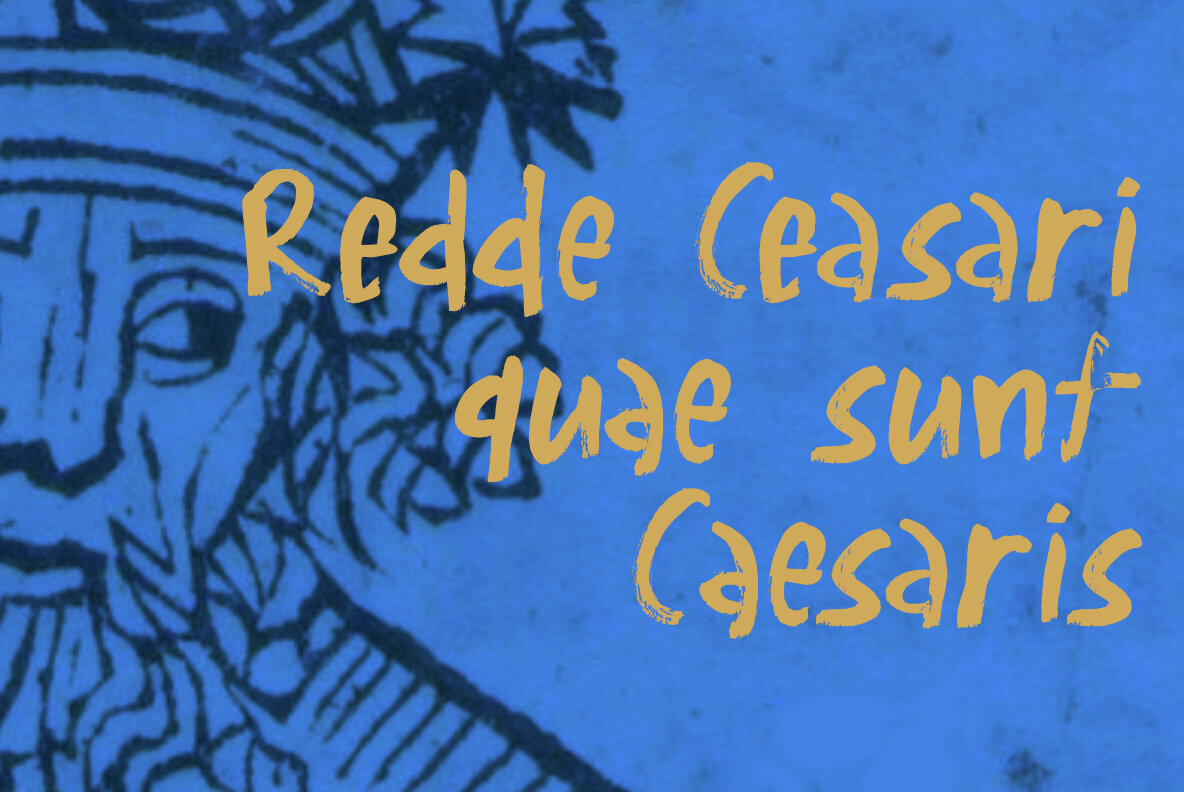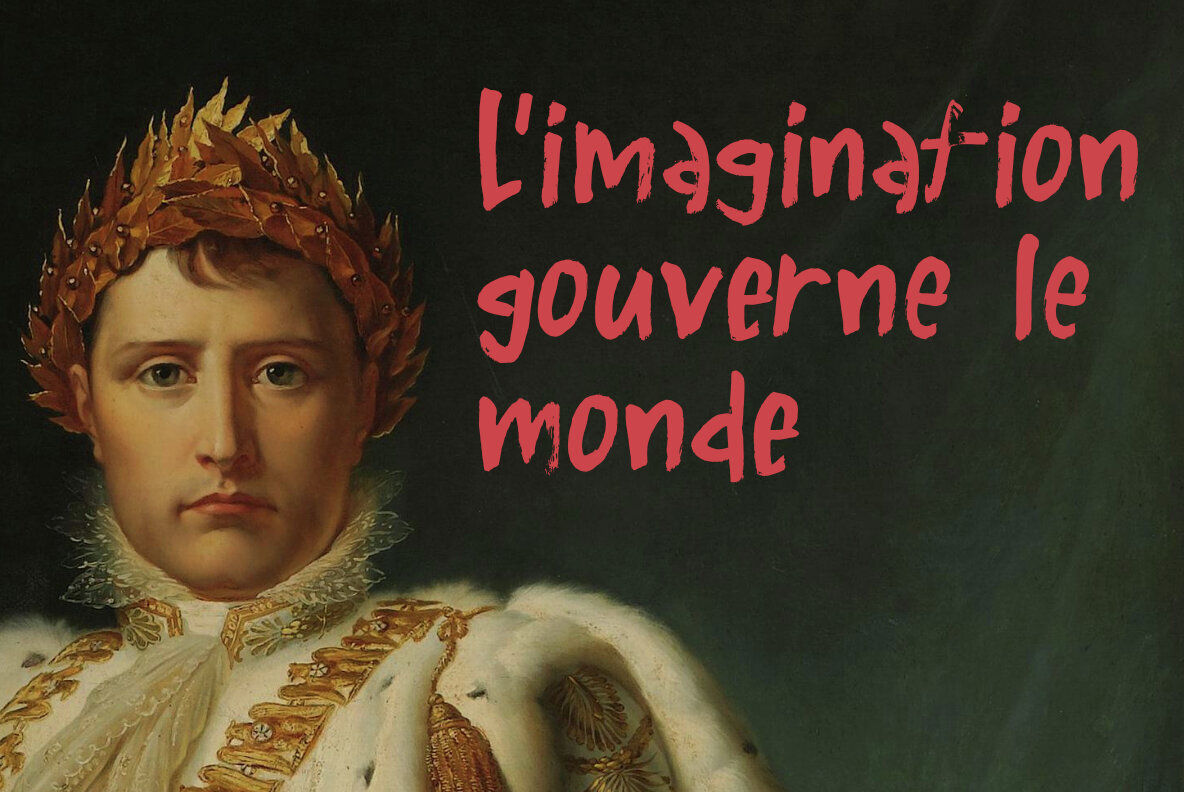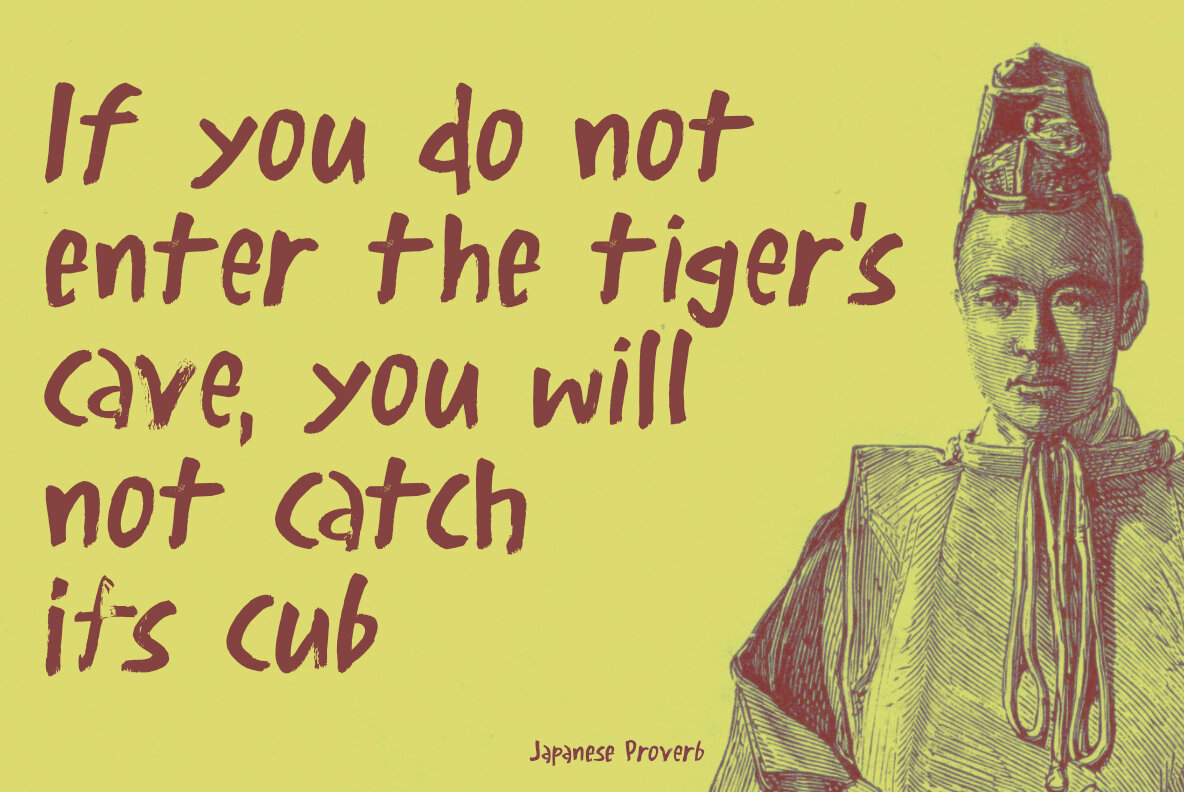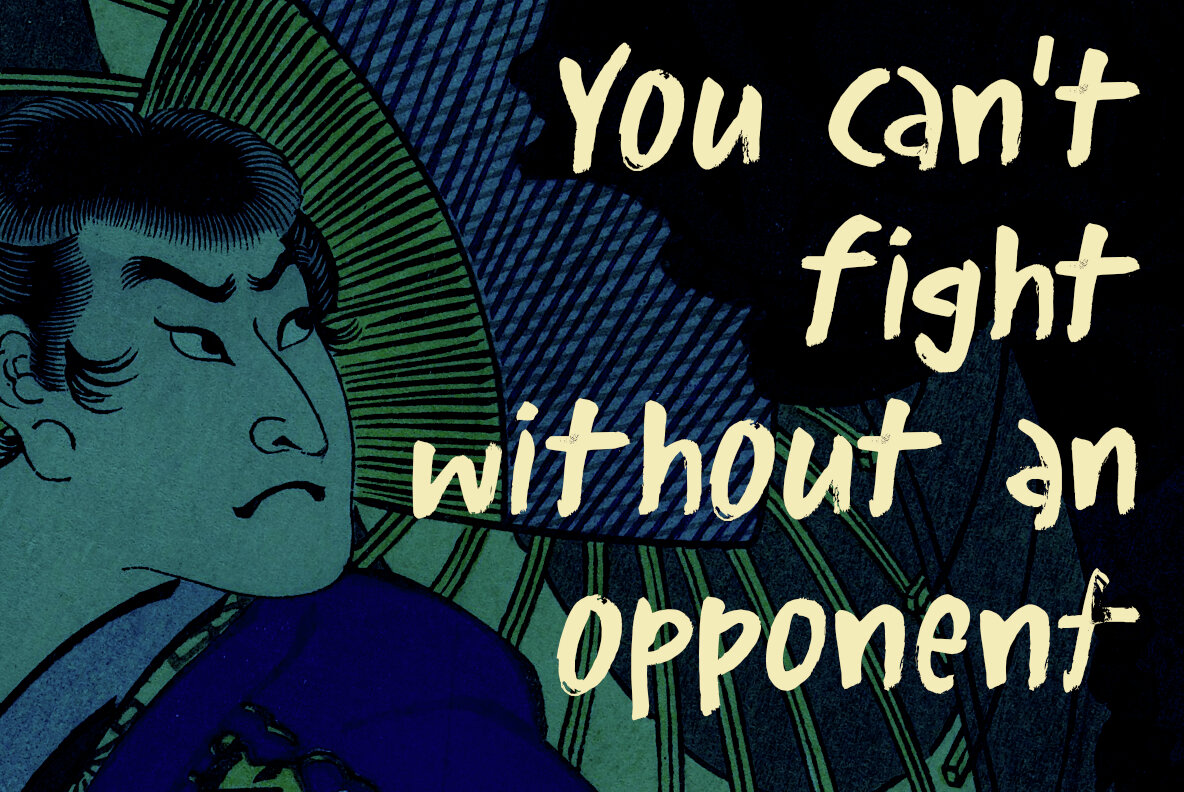
Supreme Leader Font
I was watching a science fiction movie with my son Boris the other day. It had a character in it called the ‘Supreme Leader’. I thought that title was hilarious, so I decided to name a font after it. Supreme Leader is a handmade brush font. I created it using Chinese ink and an old brush I have been using for a while now. Supreme Leader comes with extensive language support and a full set of alternates for the lower case letter.